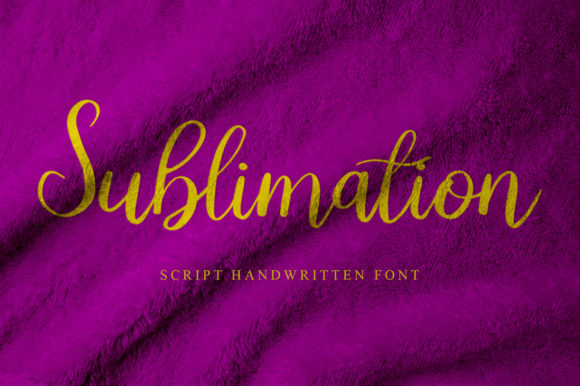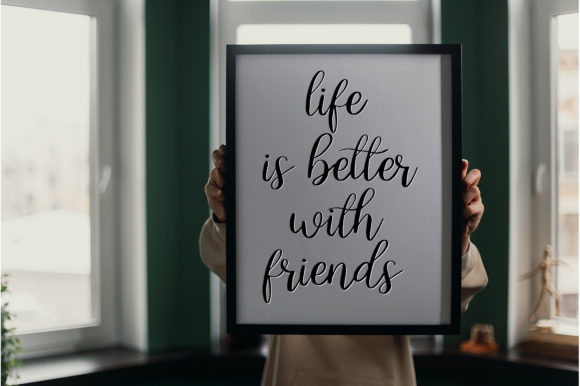
About Sublimation Font
Sublimation is a chic, refined script font that emanates sophistication and elegance. Its stylish alternates and ligatures make this font the perfect match for any project.